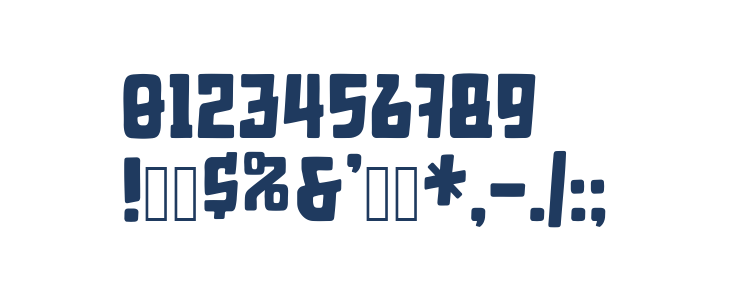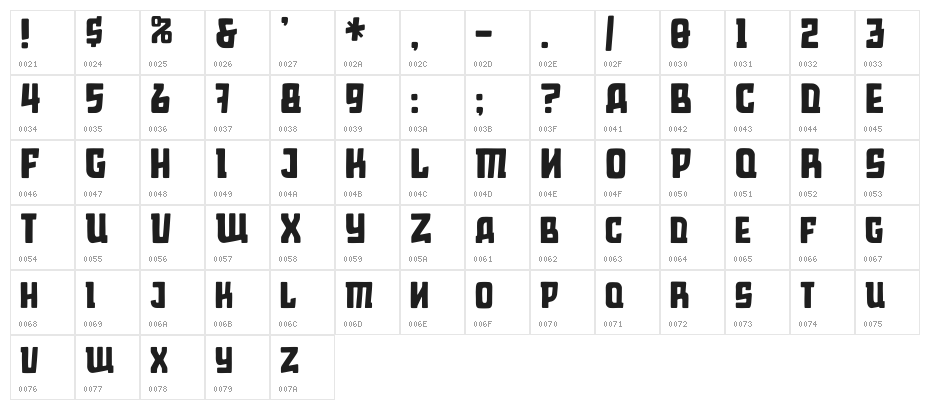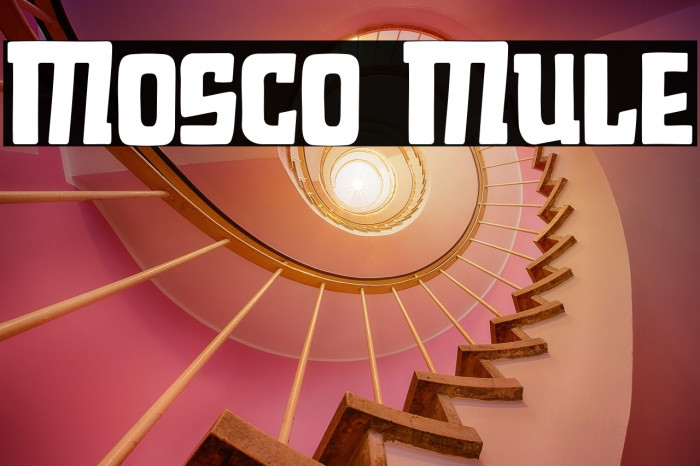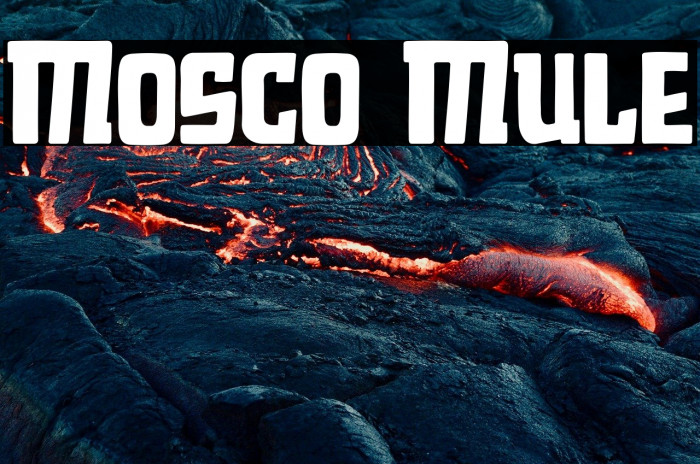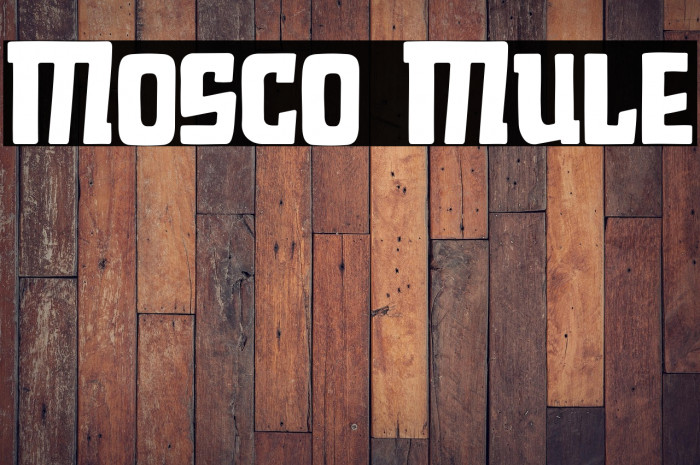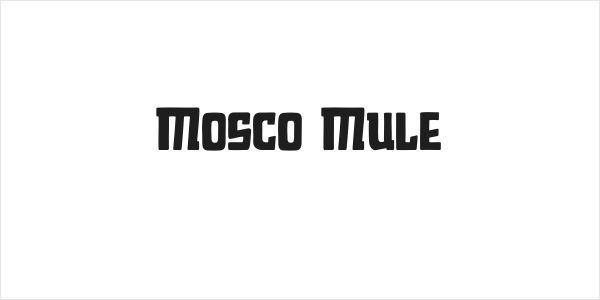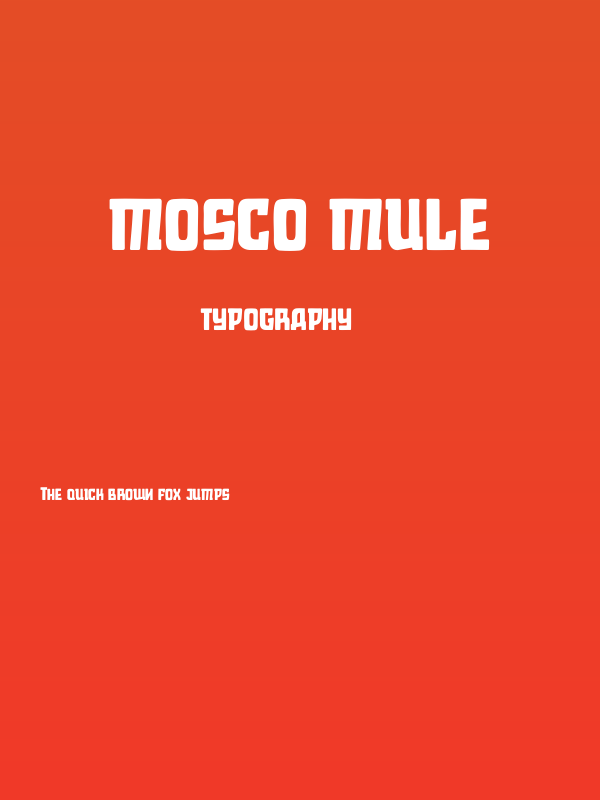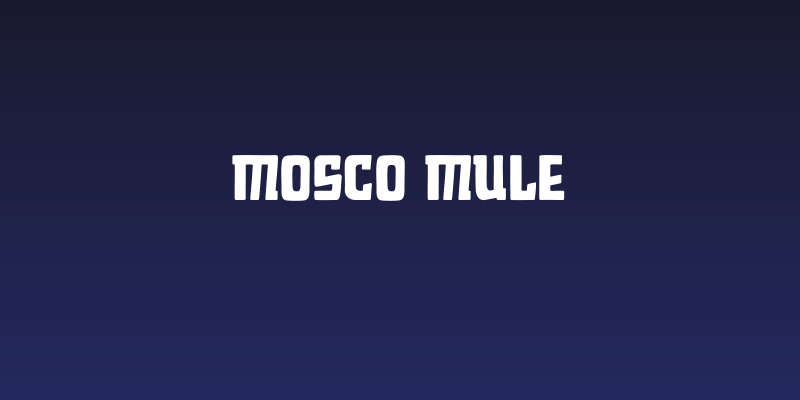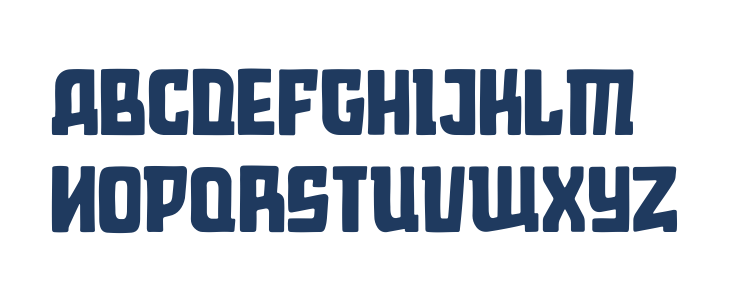
Mosco Mule Font
Mosco Mule Description
This font features bold, blocky characters with a distinct, playful style. The letters have a strong presence with slightly rounded edges, giving them a friendly and approachable feel. The uppercase and lowercase letters maintain a consistent weight, contributing to a cohesive look. The numbers and special characters follow the same design principles, ensuring uniformity across all glyphs. The font's unique style makes it stand out, with a slightly condensed width that enhances its boldness. It's ideal for projects that require a strong visual impact, such as posters, headlines, and branding materials.
| Overall Style | Playful, Bold |
| Use Case | Headlines, Posters, Branding |
| Proposed Projects | Ideal for posters, headlines, branding, and any project requiring a strong visual impact. |